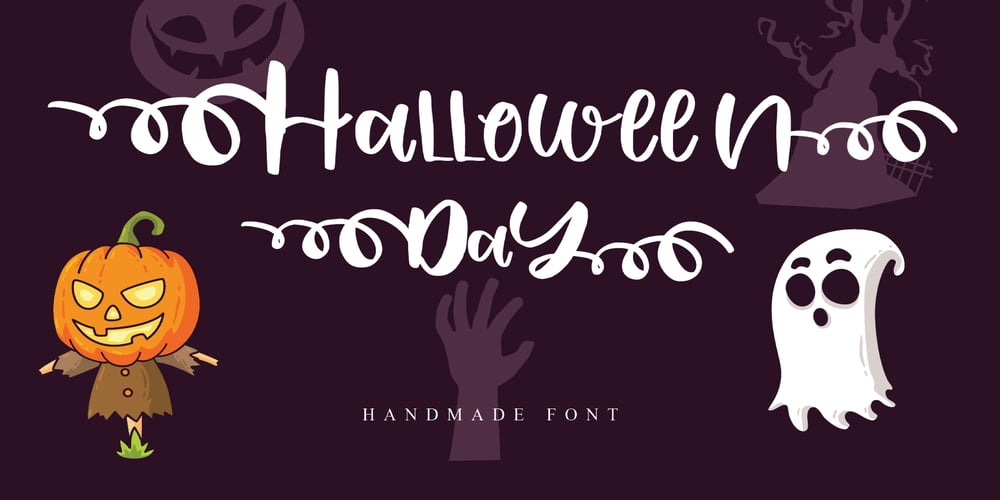
Halloween Day Font Family was designed by Mariyana and published by Goodigital13. Halloween Day contains 1 styles and family package options. These font can be used in web design and apps as well as in booklet, posters, or any other printed matter. Halloween, is a display spooky feel font. It’s suitable for dark and Halloween theme. Such as a Poster, Logotype, Social Media Promotion, Merchandise or Crafter.